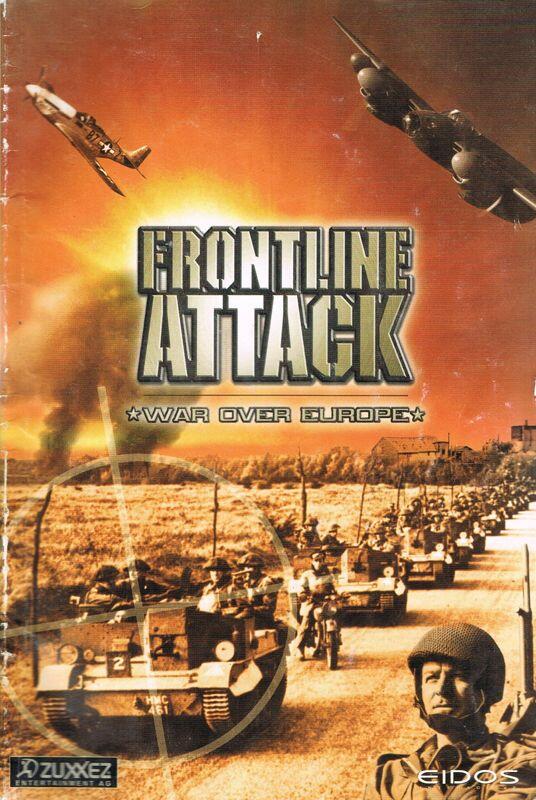
The cover font of the game Frontline Attack: War Over Europe
The font for "Frontline Attack" looks similar to Tripper Stencil Pro, but the "T" and some other letters don't fit. "War Over Europe" looks more generic, but I couldn't identify it either. Any help us appreciated.